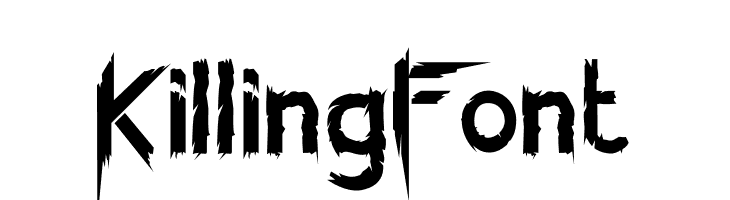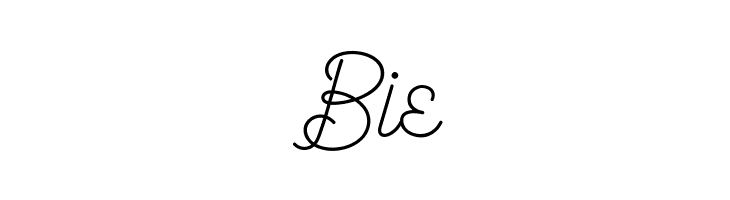
A jagged, distressed font with sharp, irregular strokes for a chaotic look.
A classic serif font with elegant strokes and sharp serifs.
A sleek, modern sans-serif font with a tall, narrow structure.
A pixelated, blocky font with a retro digital style.
A bold, angular font with a hand-drawn, graffiti-like style.
Bold, brush-style handwritten font with dynamic strokes.
A bold, geometric font with strong visual impact.
A bold, dripping font perfect for eerie and spooky designs.
An elegant, flowing script font with thin, graceful strokes.